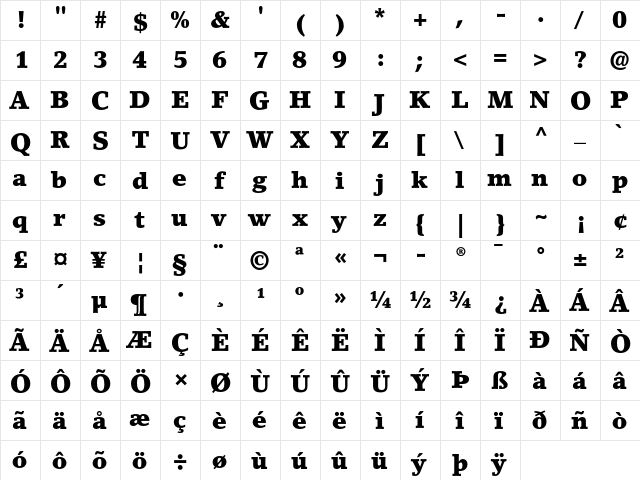
Lino Letter Black
Design Context for Lino Letter Typeface
Lino Letter takes a measured approach to typography — its balanced proportions and neutral character make it a reliable workhorse for both digital and print work.